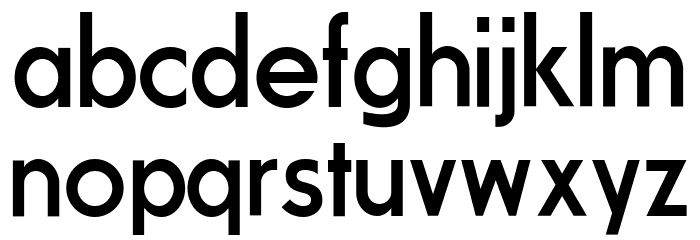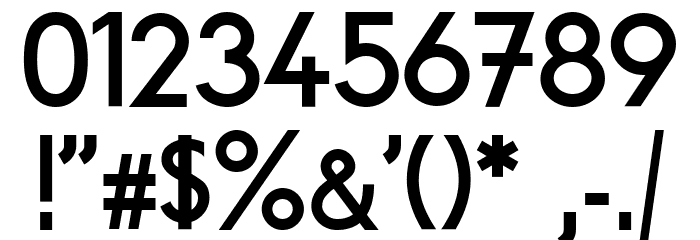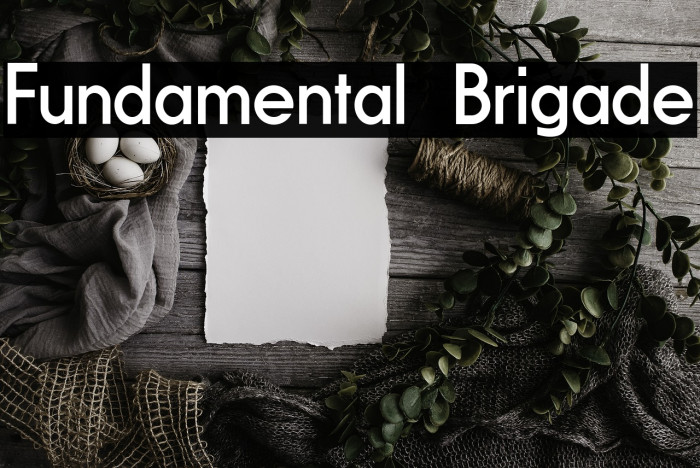
Fundamental Brigade Font
This font features a clean and modern sans-serif design with uniform stroke widths, giving it a sleek and contemporary appearance. The characters are well-proportioned, with a slightly condensed structure that enhances readability while maintaining a stylish look. The uppercase letters are bold and assertive, while the lowercase letters are more rounded, providing a balanced contrast. The numerals are clear and distinct, making them suitable for various applications. The special characters are designed to complement the overall aesthetic, ensuring consistency across different uses.
A modern sans-serif font with clean lines and a slightly condensed structure.